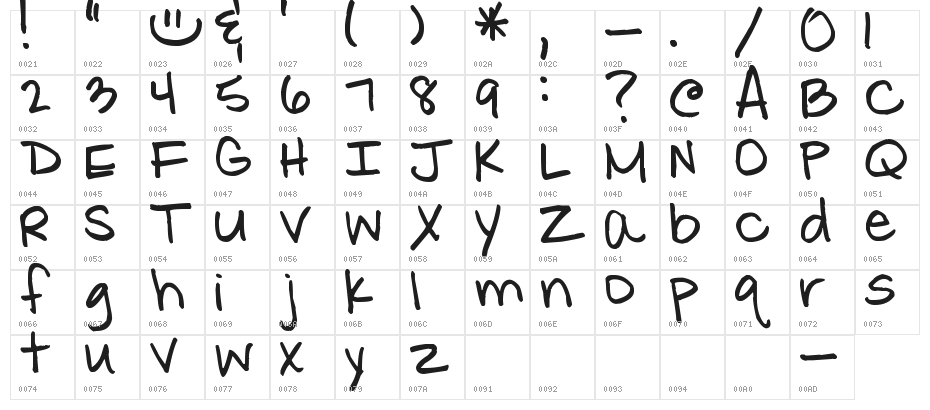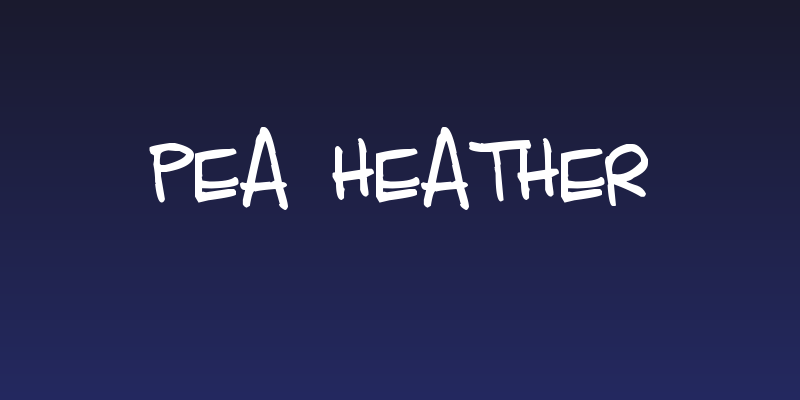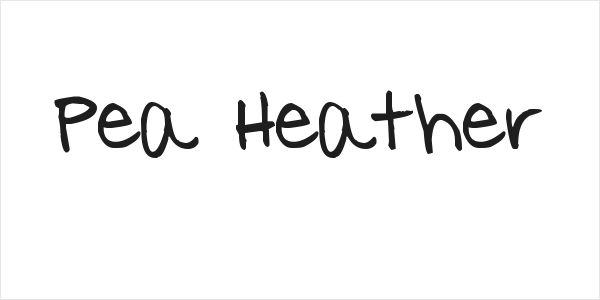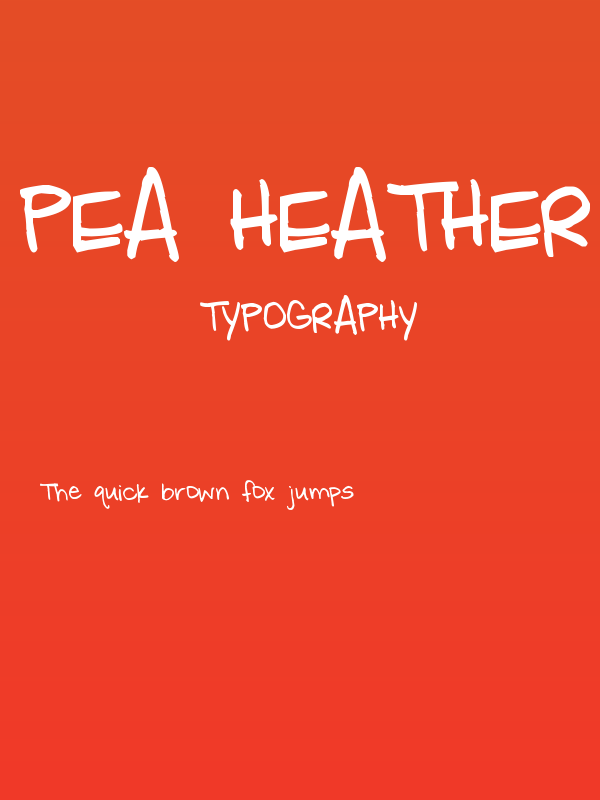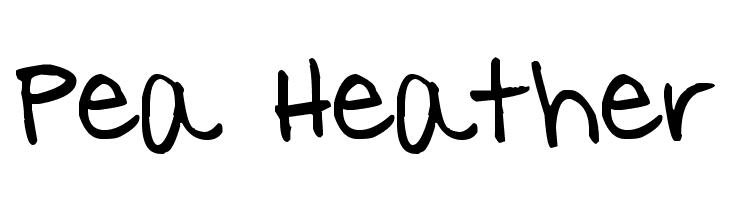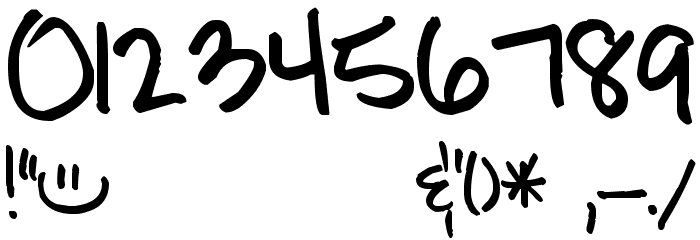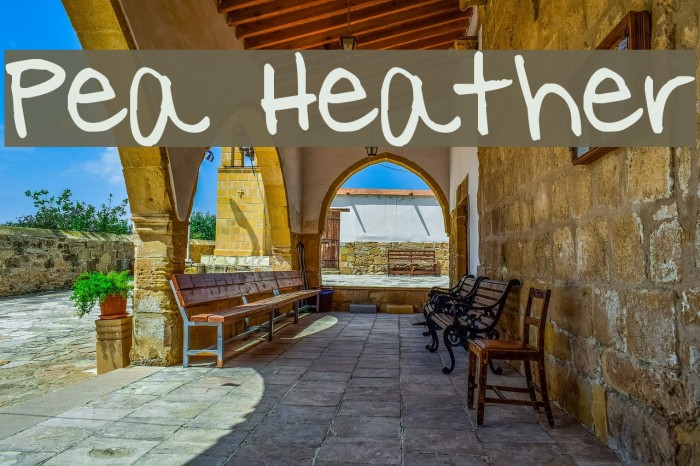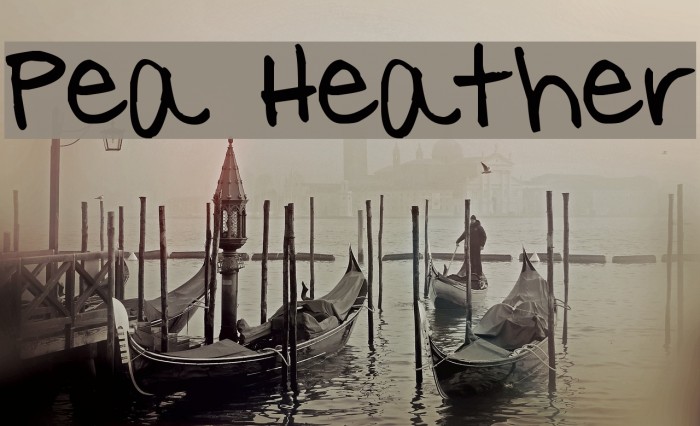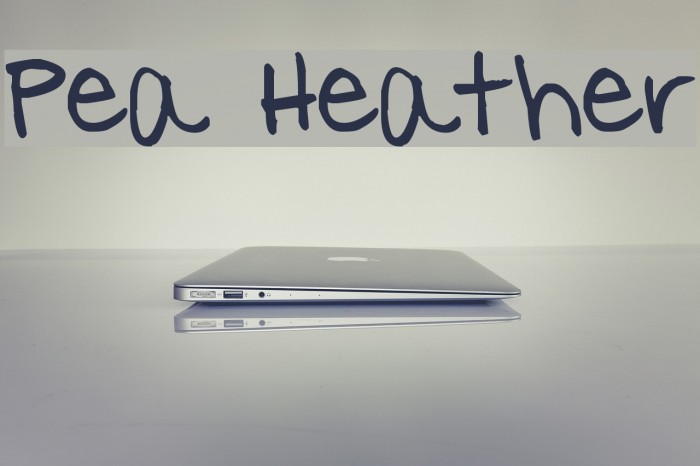
Pea Heather Font
Pea Heather Description
This font exudes a playful and casual handwritten style, characterized by its uneven strokes and informal appearance. The letters are slightly slanted, giving a dynamic and lively feel. The uppercase and lowercase letters maintain a consistent flow, with rounded edges and a relaxed structure. The numbers follow the same informal style, making them blend seamlessly with the alphabet. Special characters are creatively designed, adding a whimsical touch to the overall aesthetic. This font is perfect for projects that require a personal and approachable tone.
| Overall Style | Casual, Playful |
| Use Case | Headlines, Informal text, Personal projects |
| Proposed Projects | Ideal for greeting cards, personal blogs, children's books, and informal branding. |